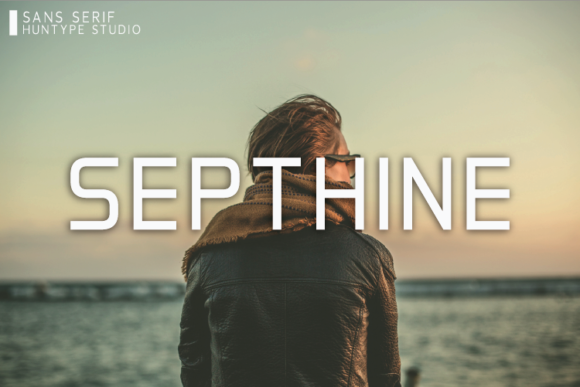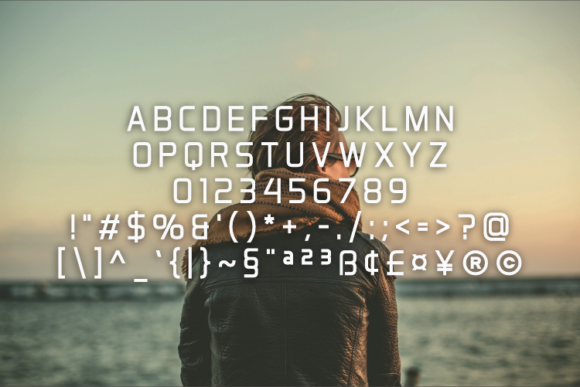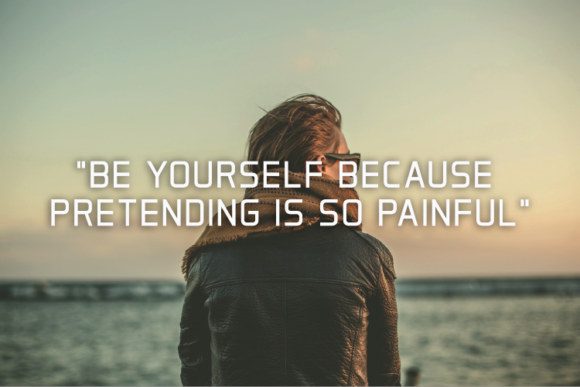
Septhine
About Septhine Font
Septhine is a beautiful and simple sans serif font. It can be used for various purposes such as logos, headings, t-shirts, letterhead, signage, labels, news, posters, badges and so much more.